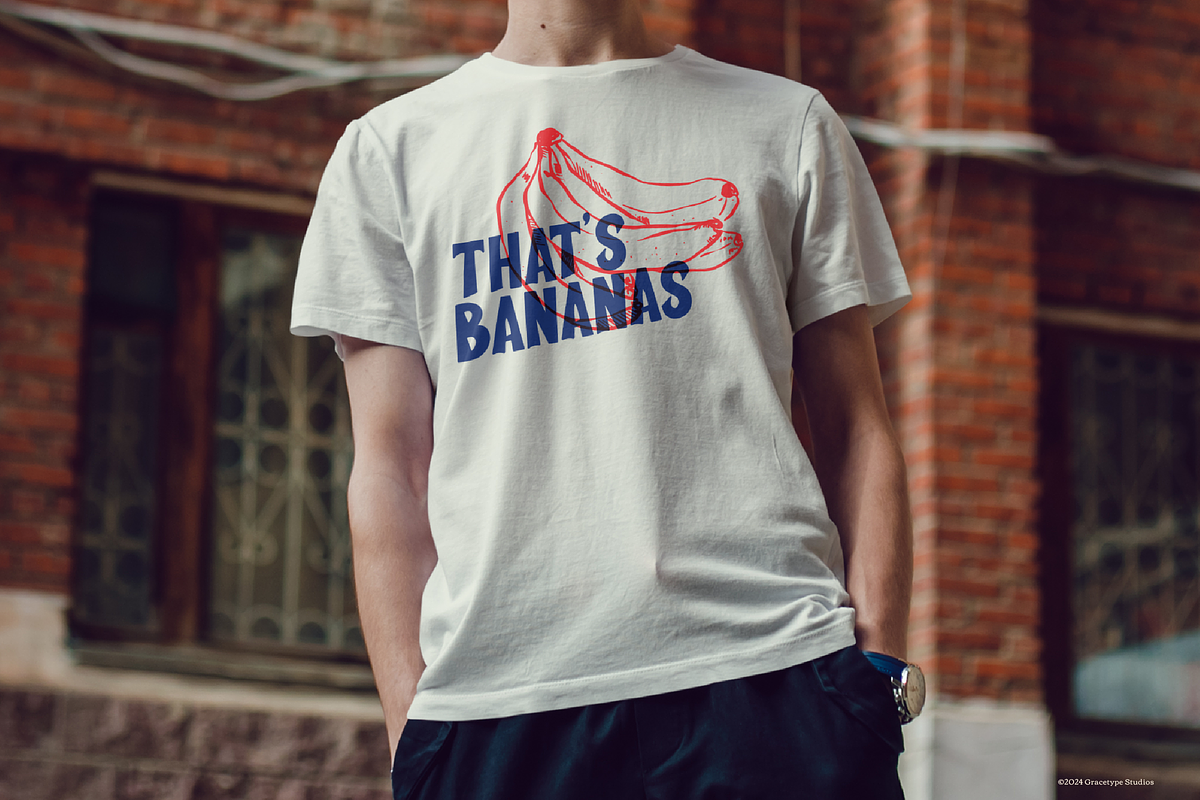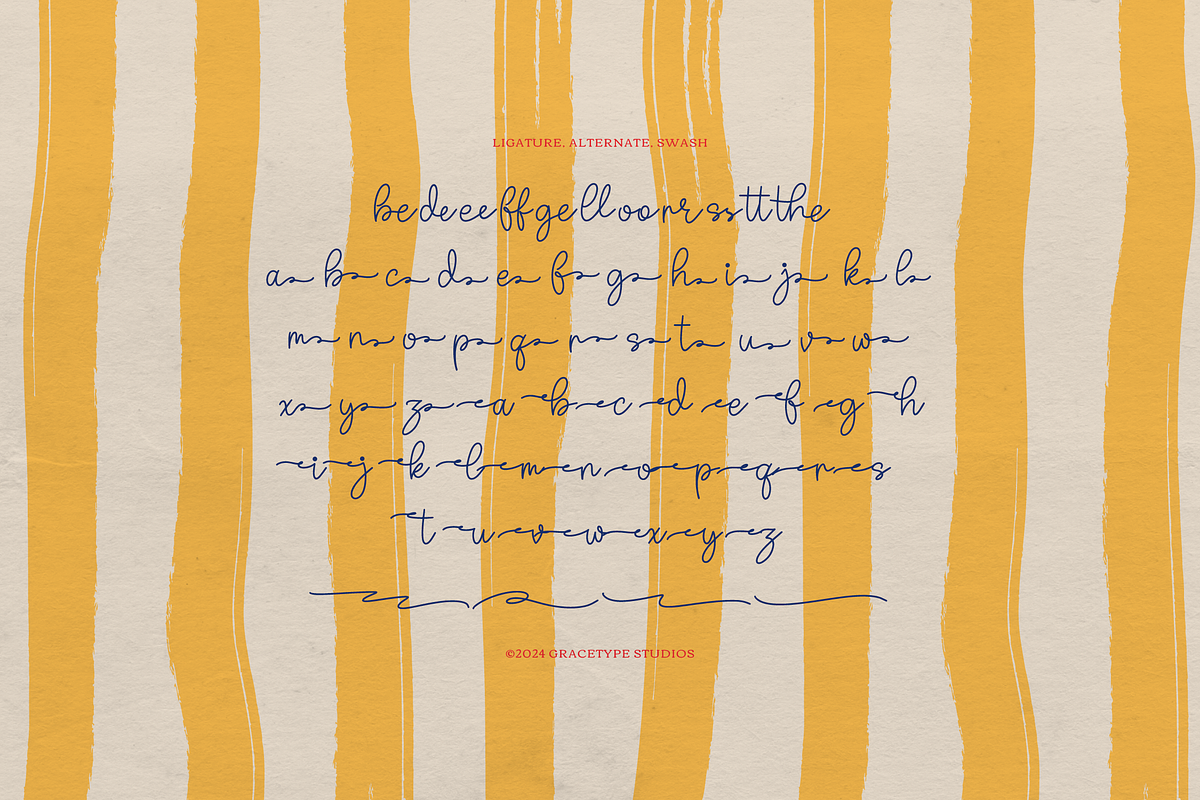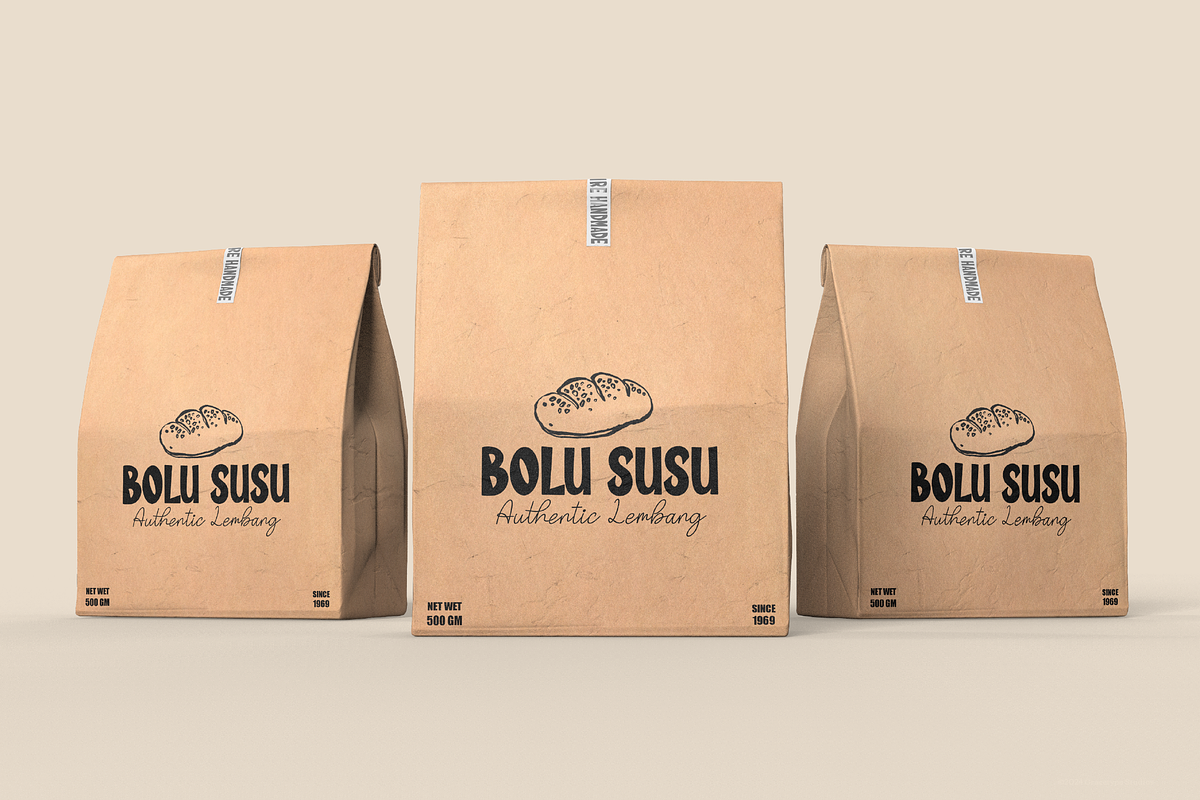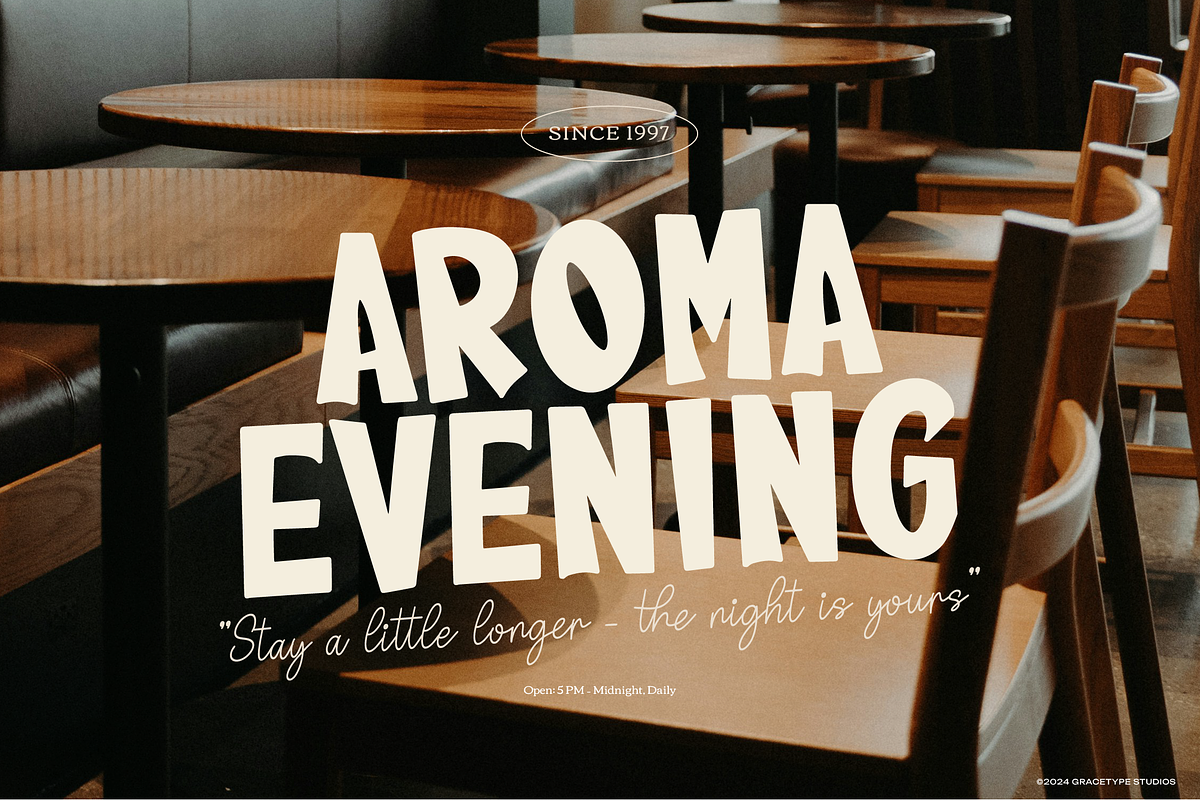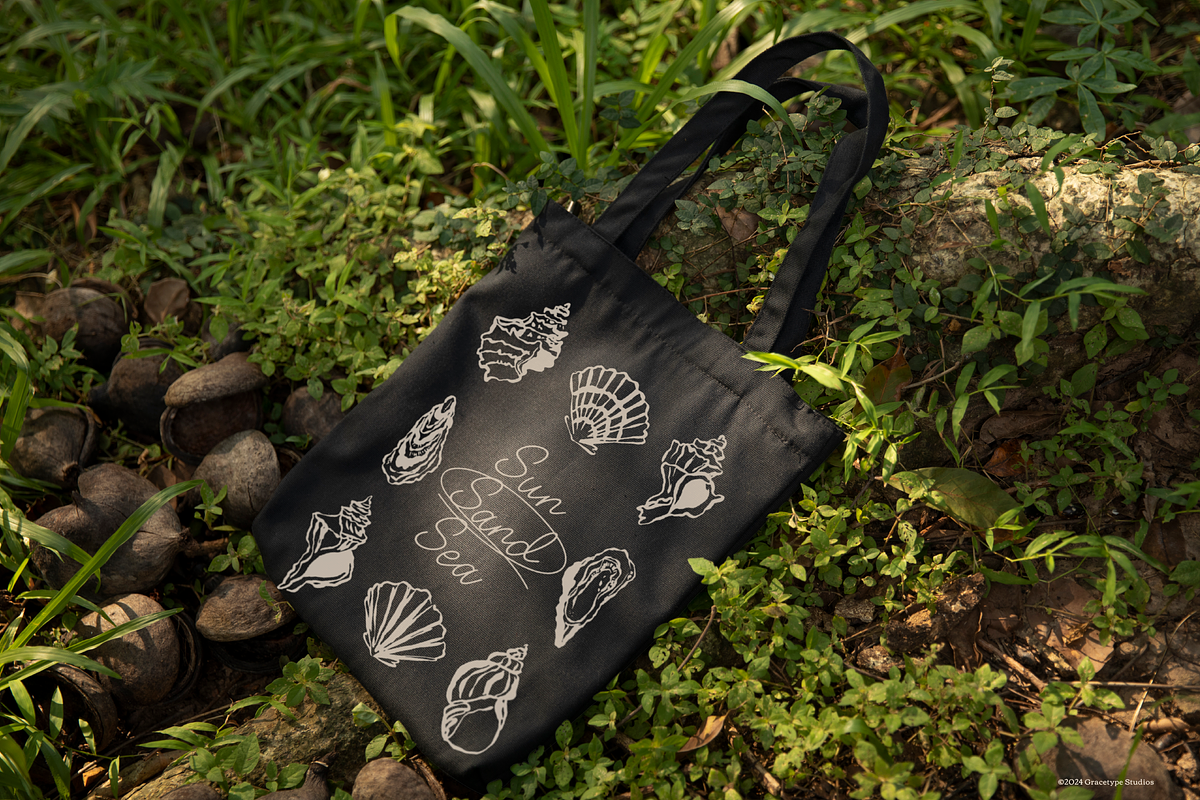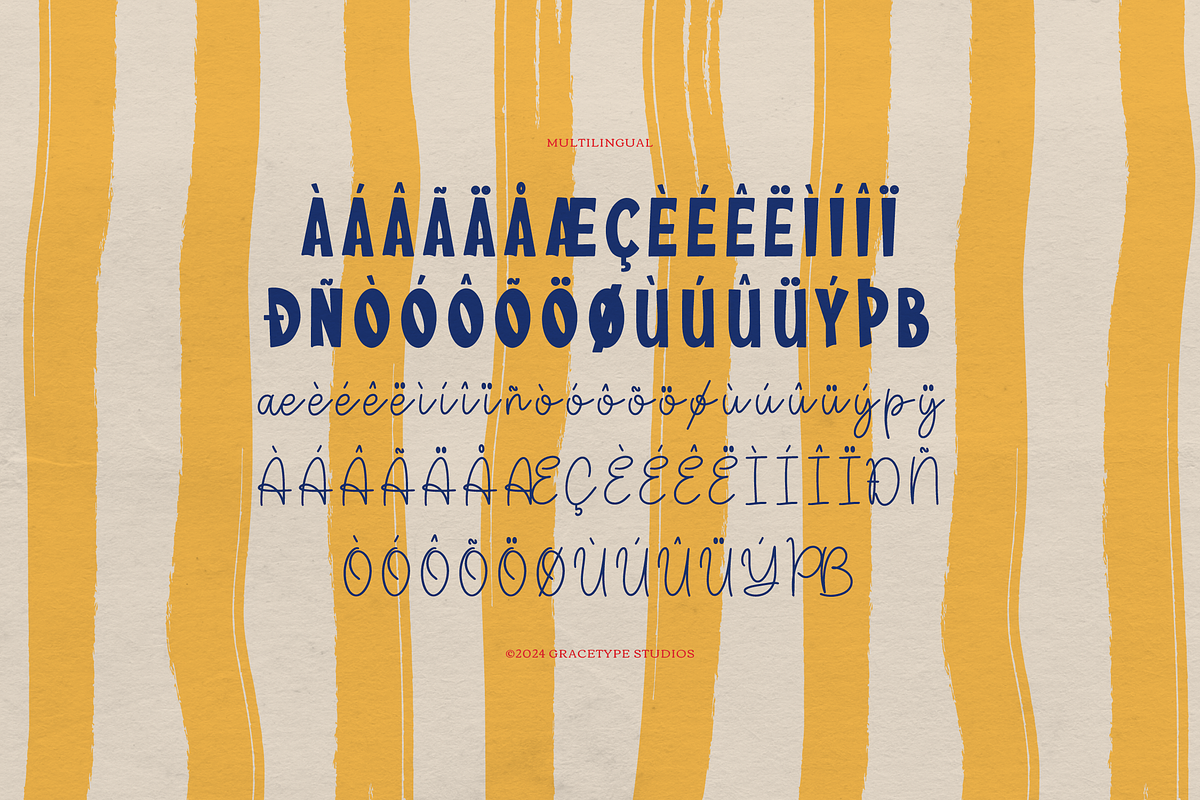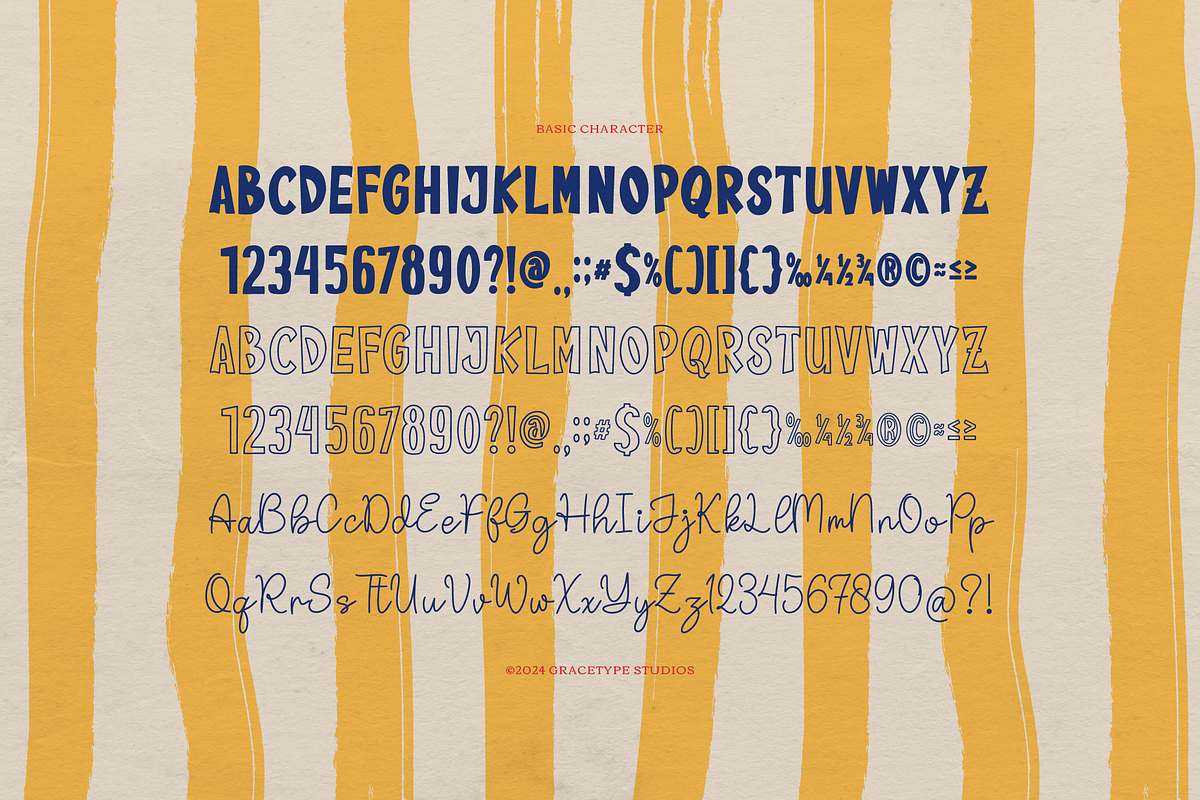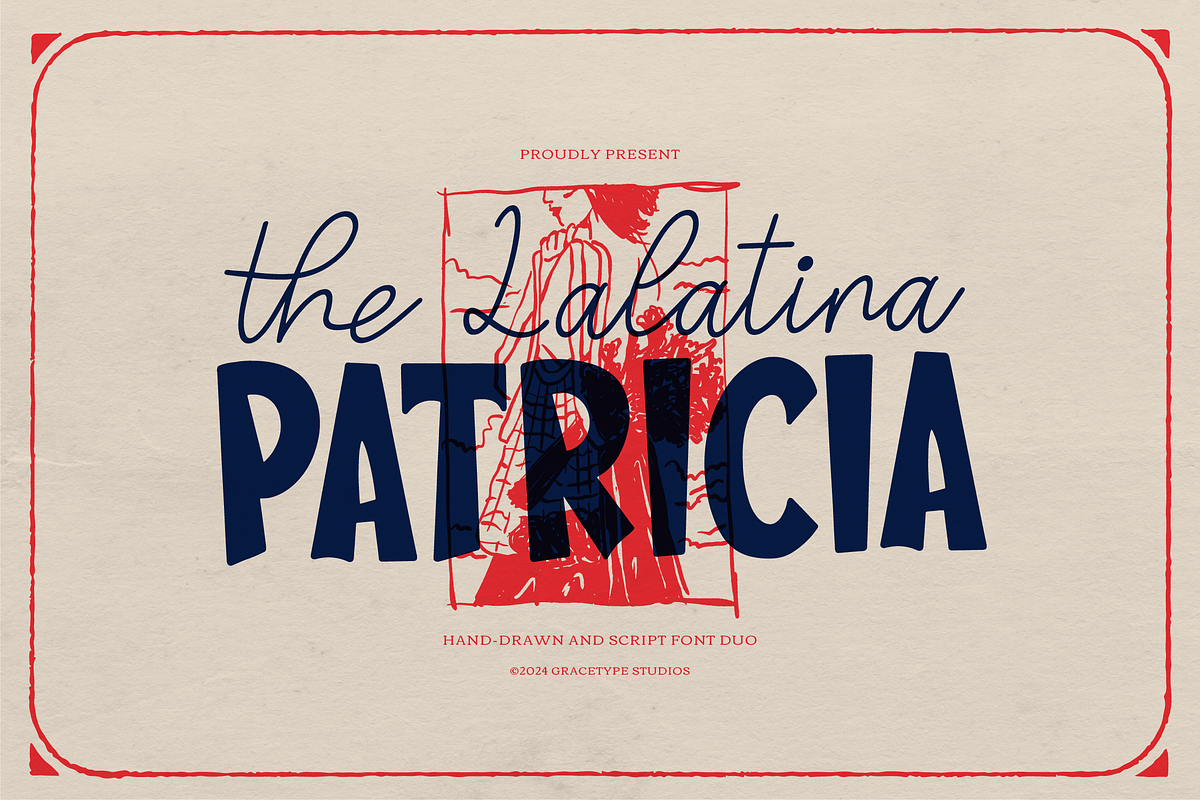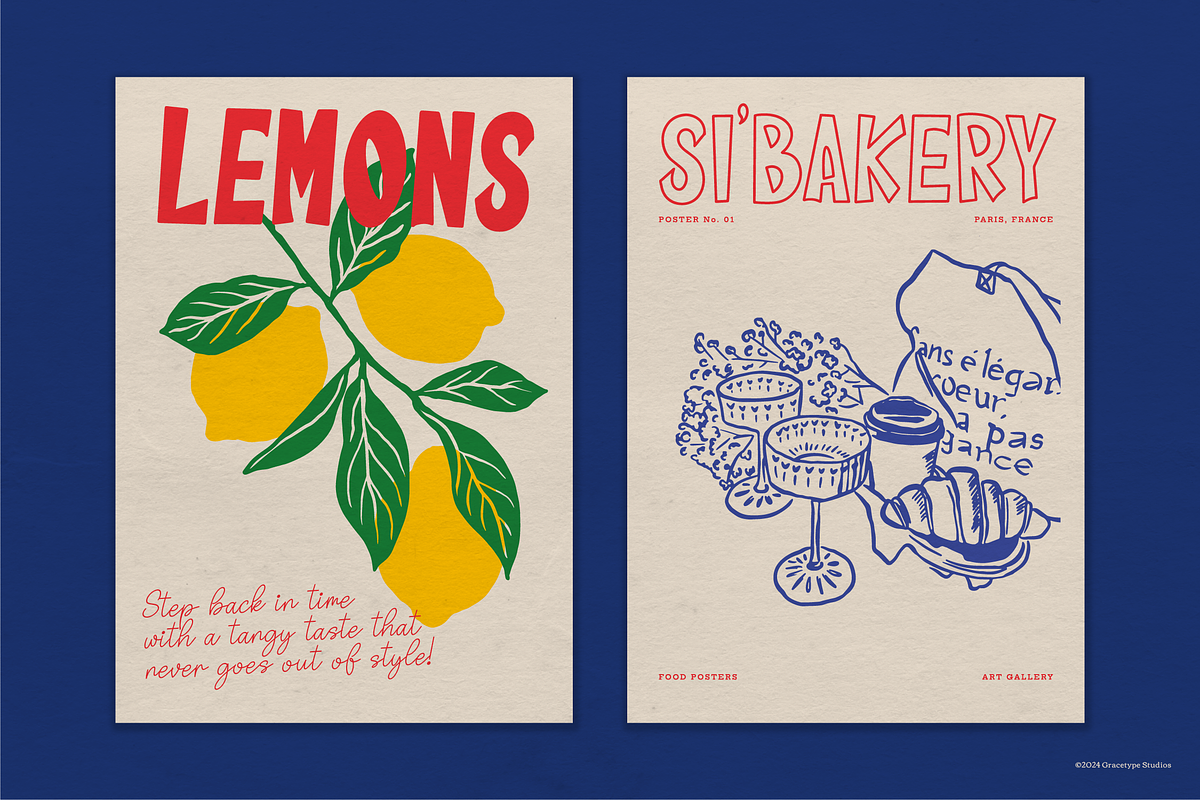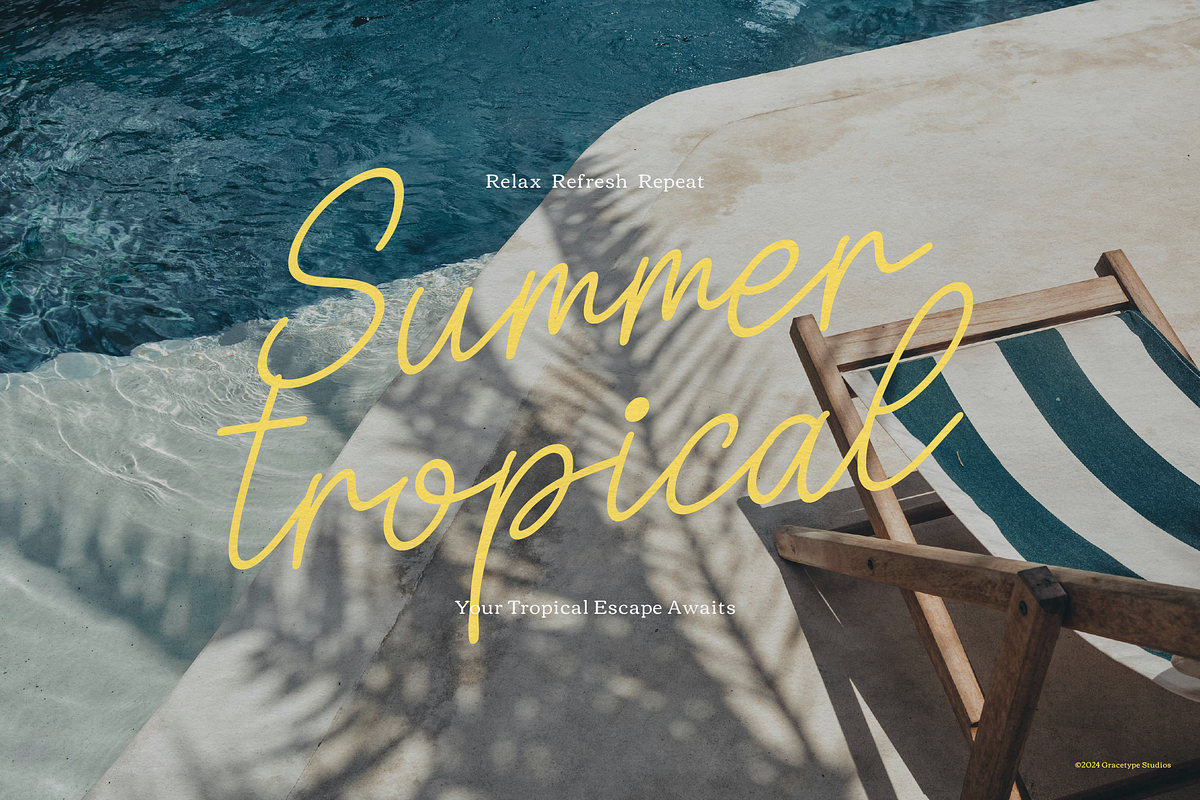
Lalatina Patricia Hand Drawn Script
Lalatina Patricia | Hand Drawn Script Duo, from Gracetypestudio, suitable for any projects such as: logos, branding projects, homeware designs, product packaging, mugs, quotes, posters, shopping bags, t-shirts, book covers, name card, invitation cards, greeting cards, label, photography, watermark, special events, and all your other lovely projects that need a Hand Drawn Script Duo taste.